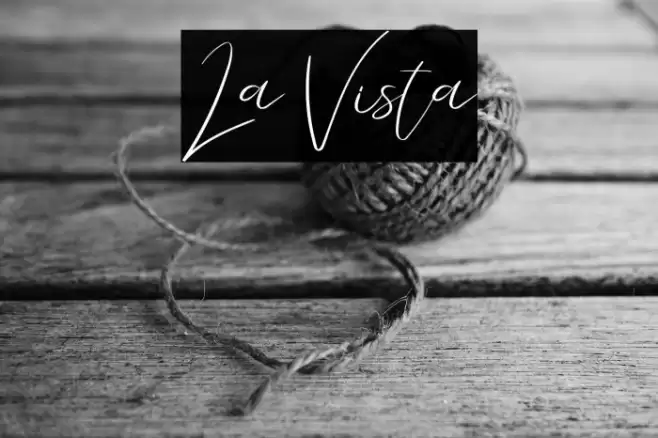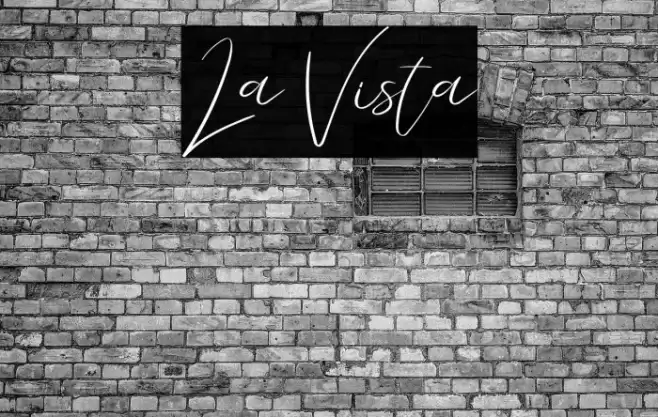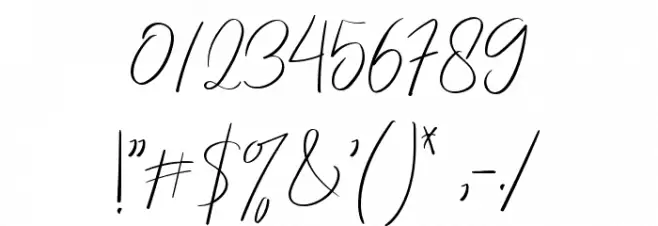
La Vista Font
La Vista Description
This elegant script font features a flowing, cursive style with a modern touch. The characters are connected with smooth, sweeping lines that give it a graceful and sophisticated appearance. The uppercase letters are tall and slightly slanted, while the lowercase letters maintain a consistent flow, enhancing readability. The numerals and special characters are designed to complement the overall aesthetic, maintaining the same fluidity and elegance. This font is perfect for projects that require a touch of class and refinement, such as wedding invitations, branding, and high-end product packaging.
A modern, elegant script font with flowing, connected characters from Regular fonts.
- Proposed Projects: Ideal for wedding invitations, luxury branding, and elegant product packaging.
- Use Case: Logos, Invitations, Branding